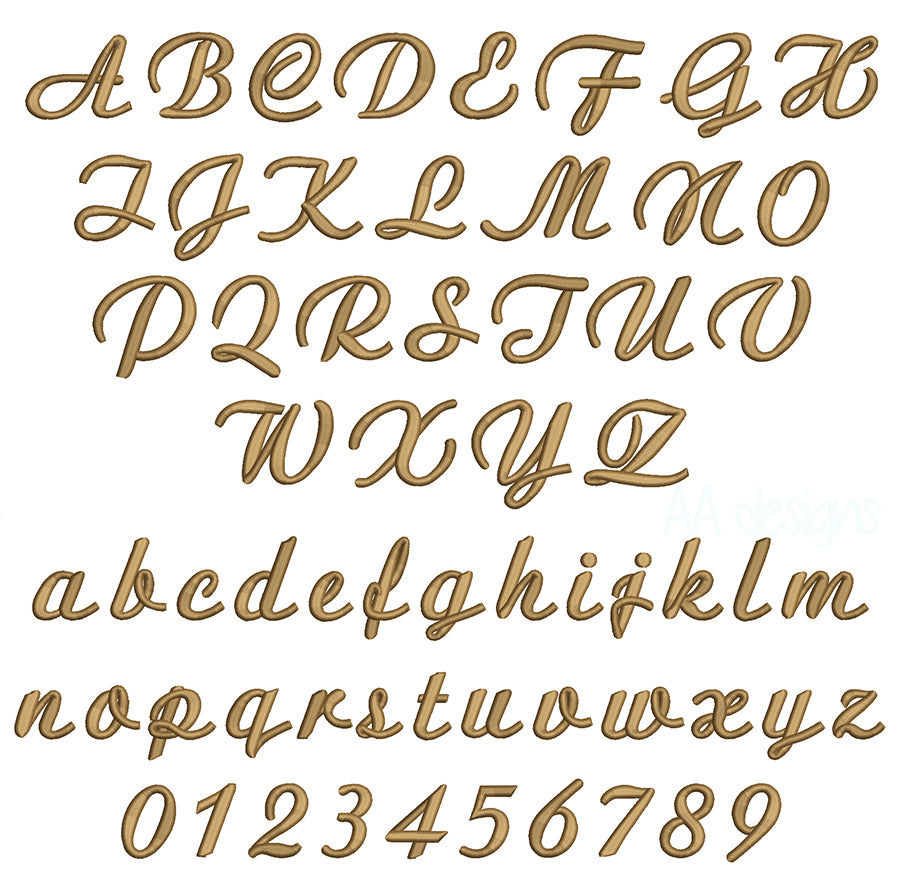
Script 3D puff embroidery digital font. Machine embroidery 3D with foam alphabet. BX format
Script 3D puff embroidery digital font
This font comes with letters in 3 sizes, A-Z, a-z, 0-9
1”high
1.5” high